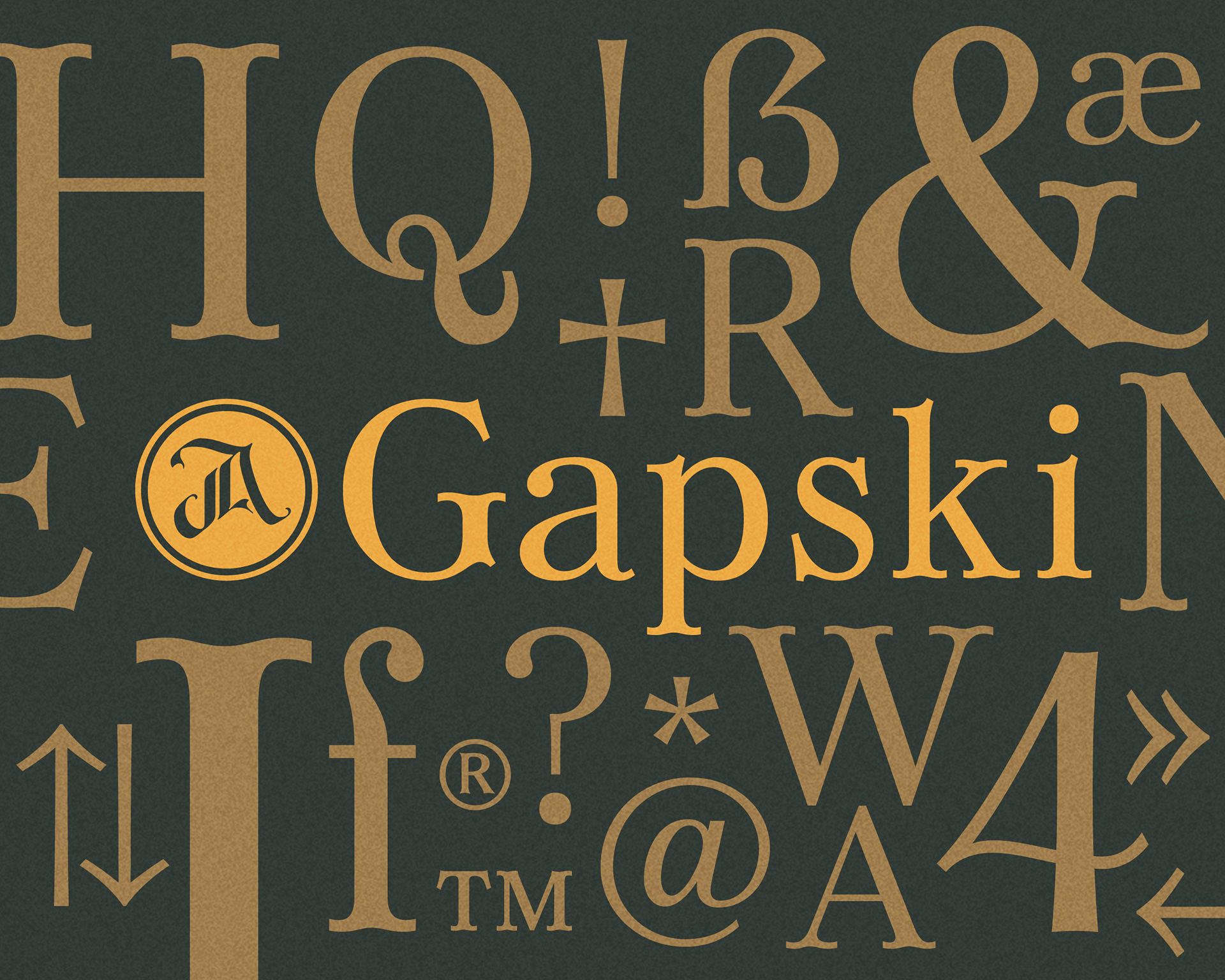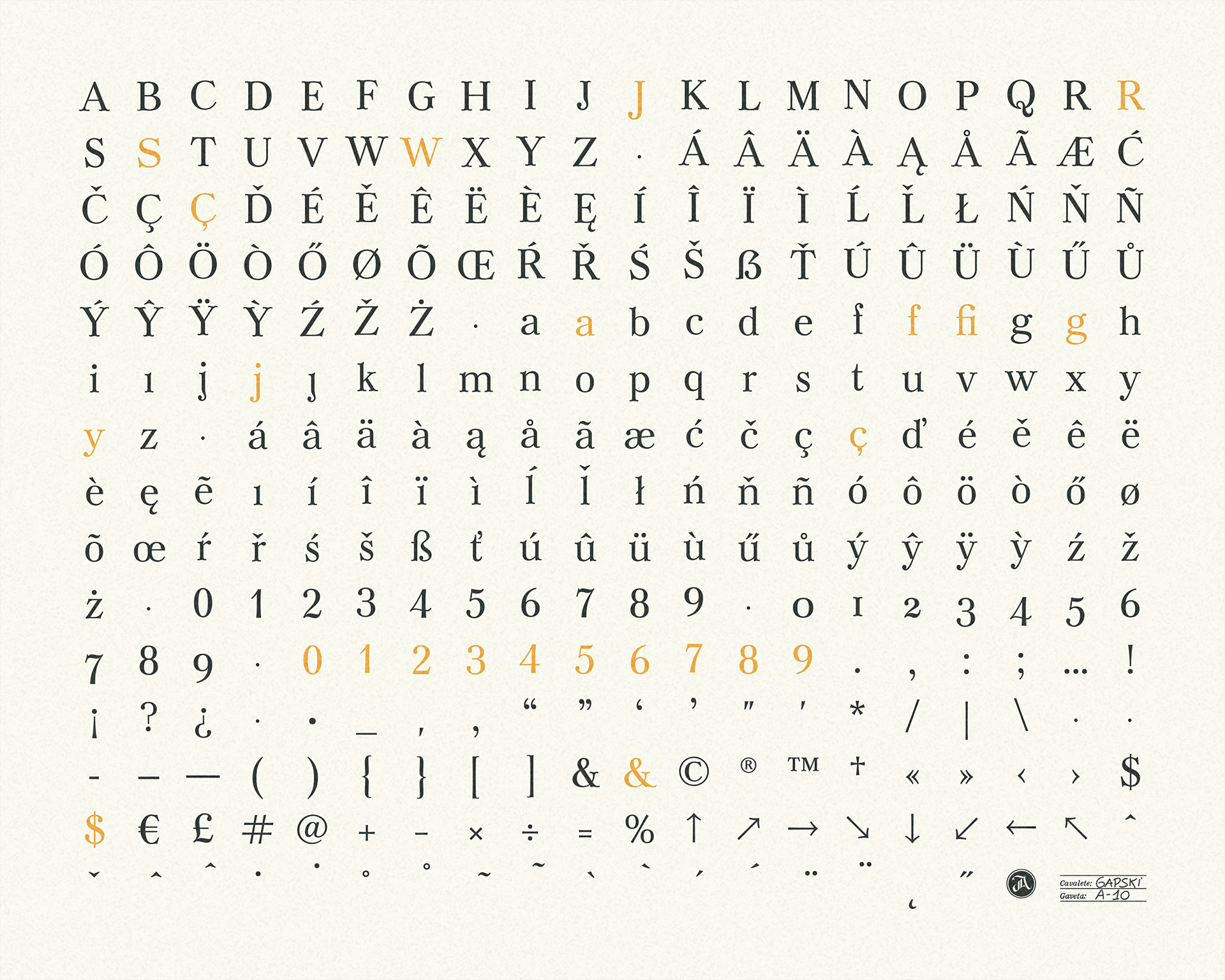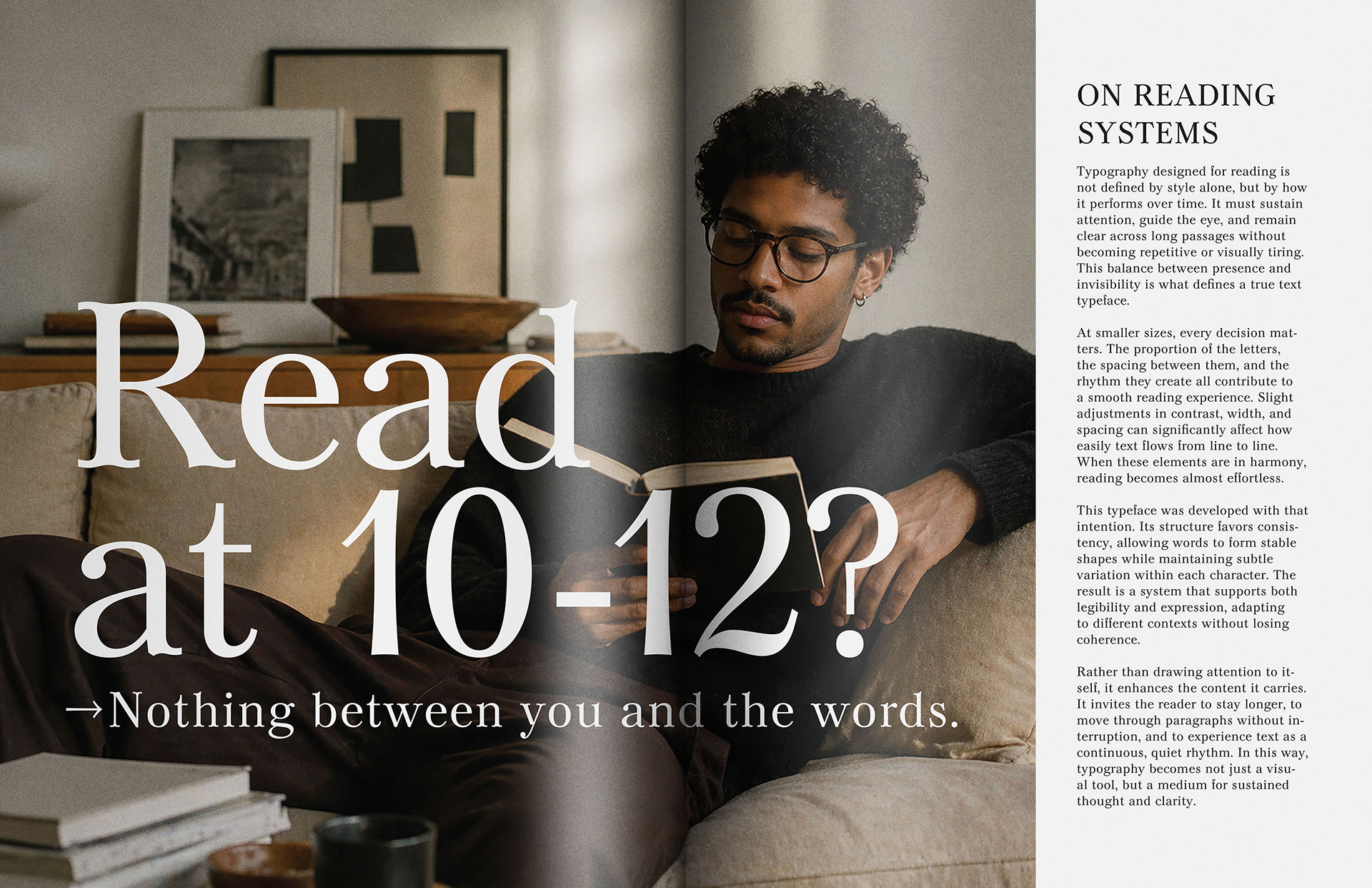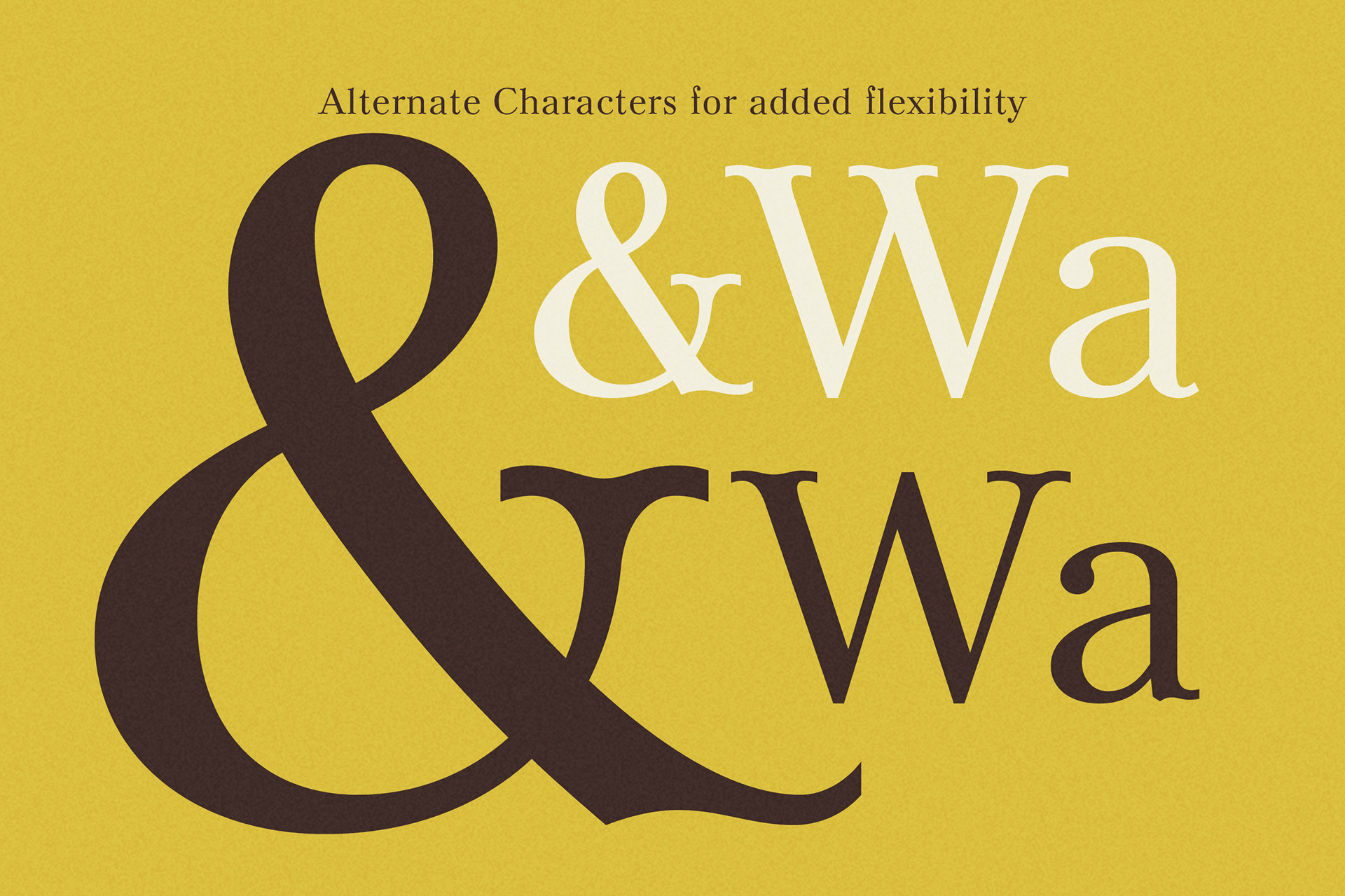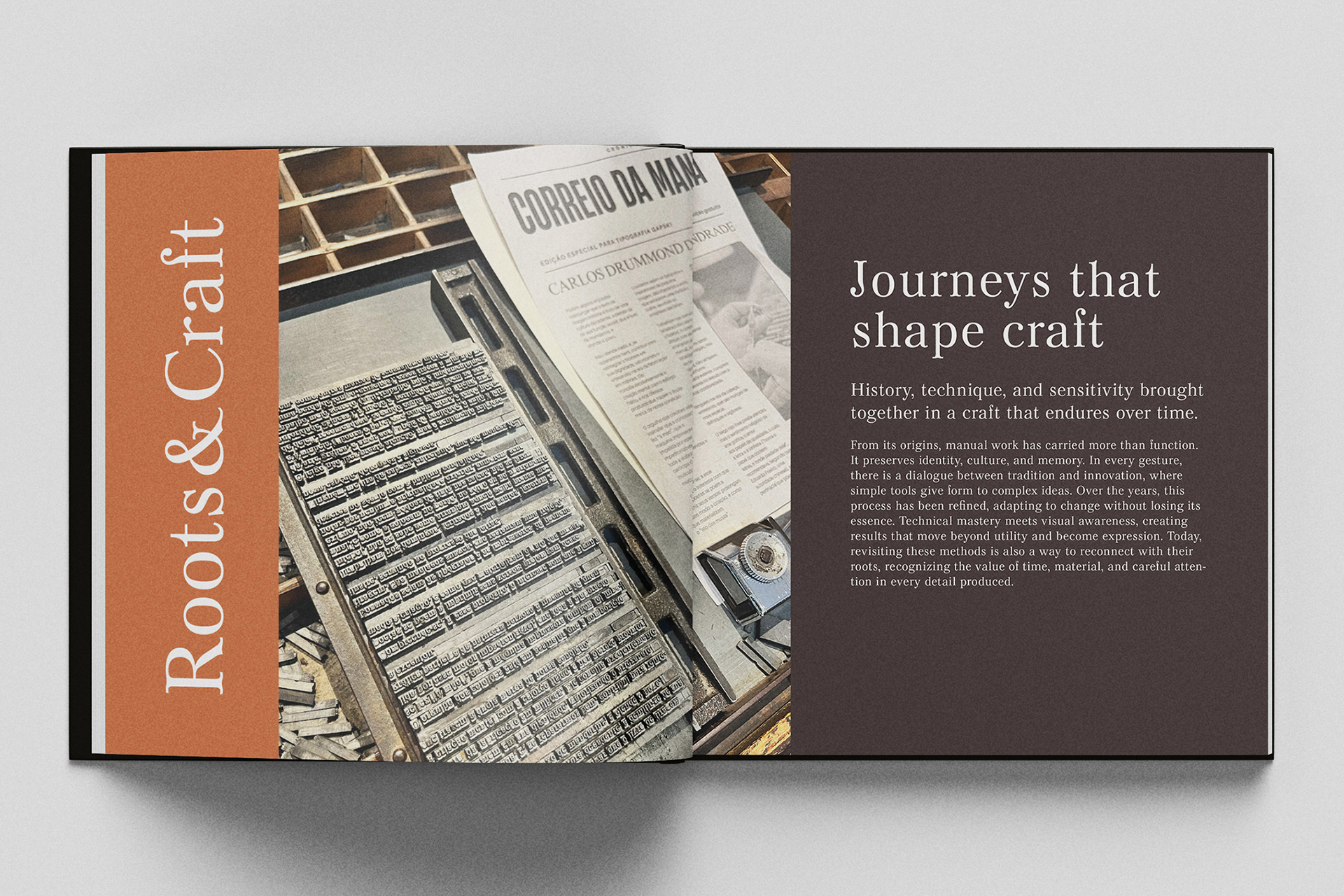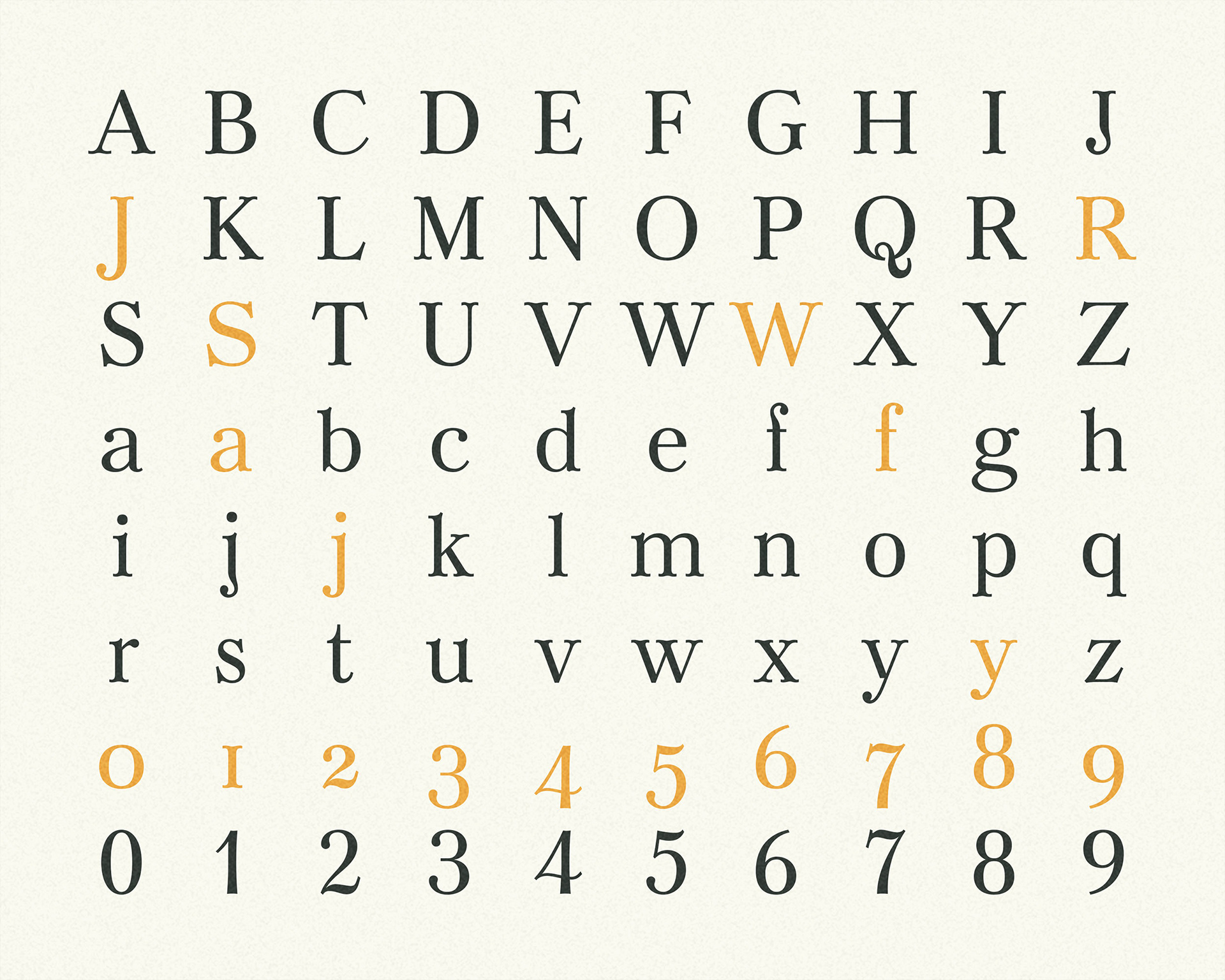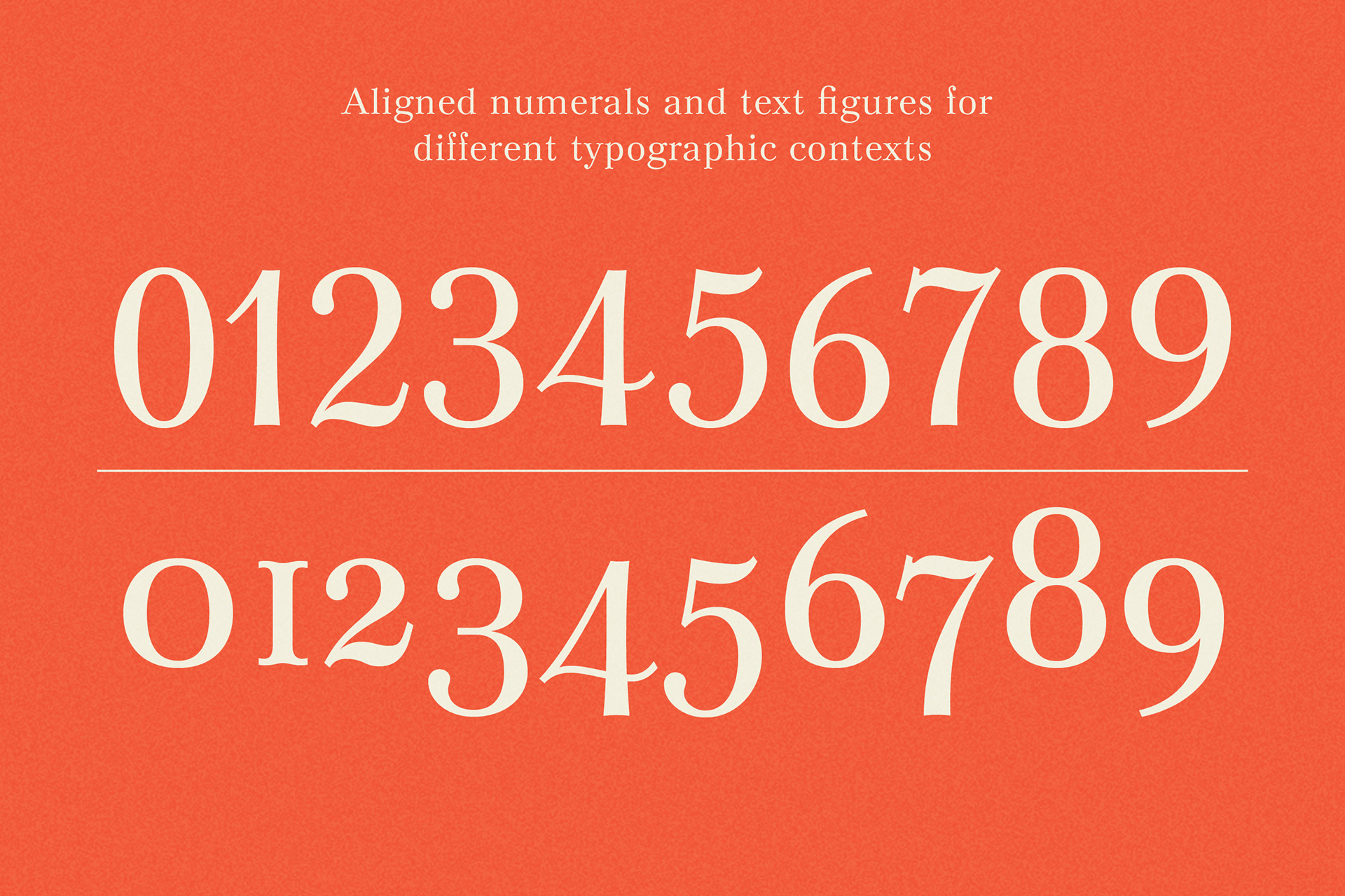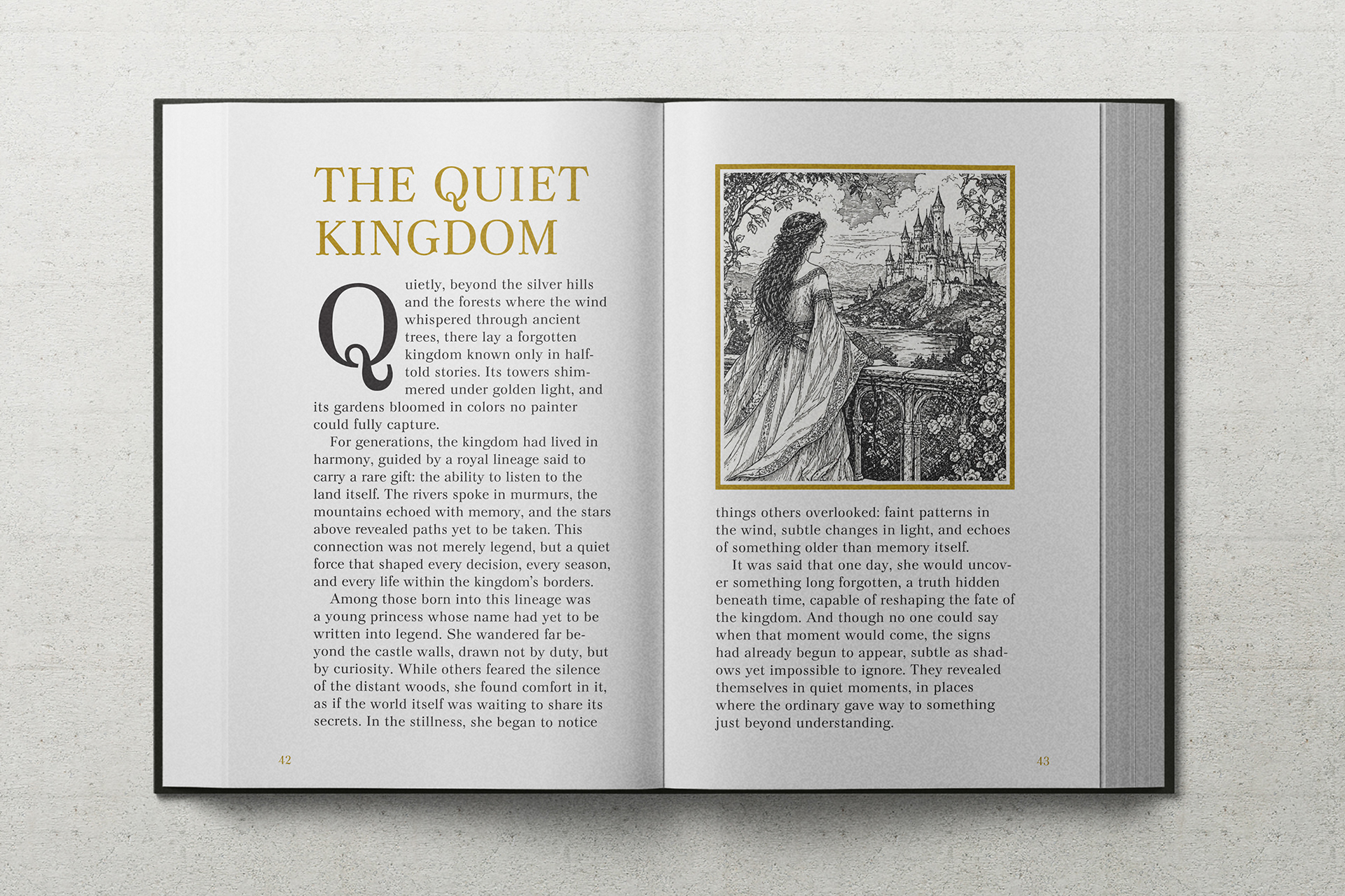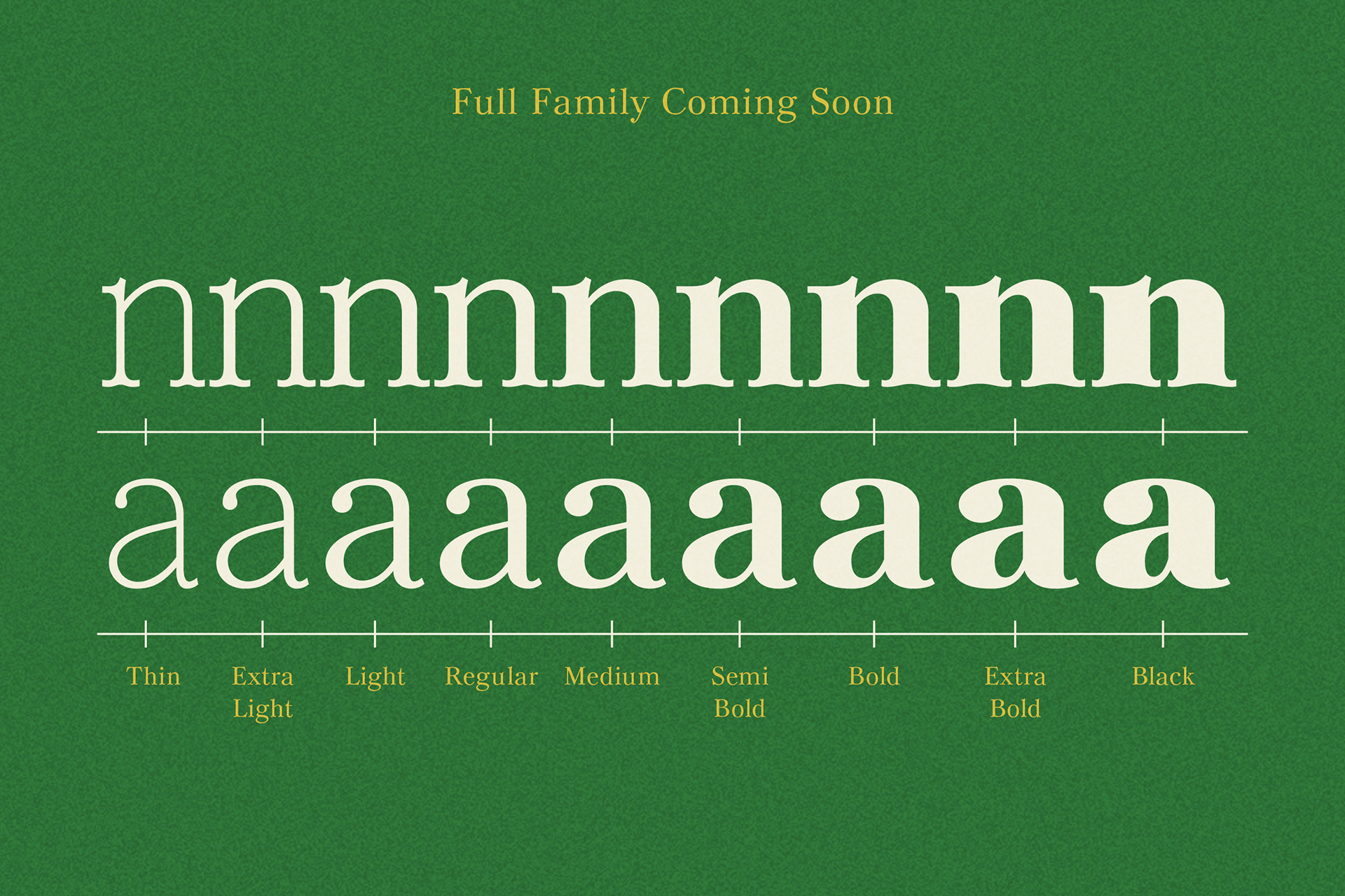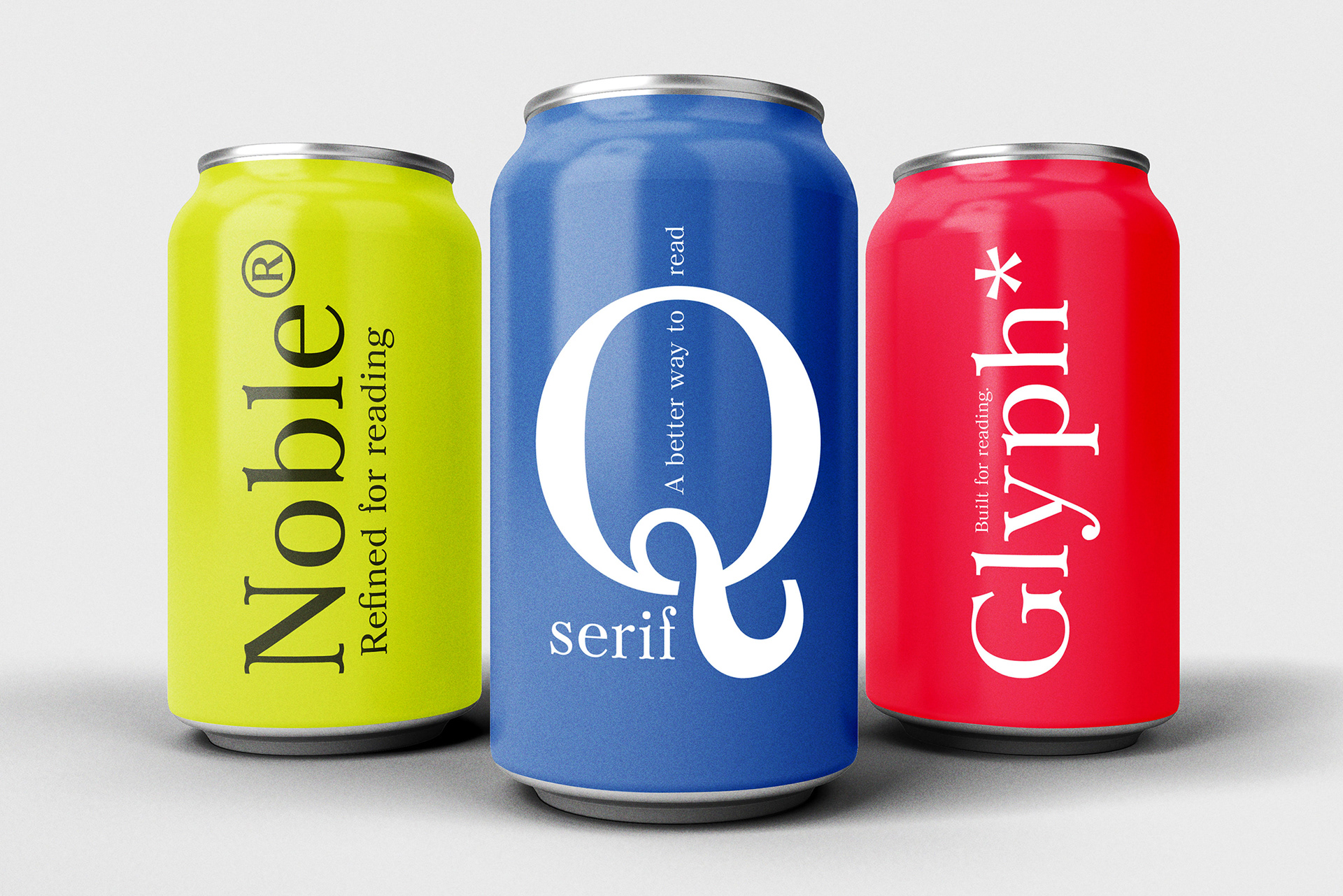
JA Gapski
A revival of Brazilian metal type for contemporary reading
This typeface is part of a revival project developed at Type West, rooted in my interest in Brazilian graphic history and cultural identity. It is based on metal type from Tipografia Irmãos Gapski, a traditional print shop in Curitiba founded in 1957, where a large collection of type has been preserved over decades.
The original forms were produced by Funtimod, one of Brazil’s main type foundries in the early 20th century, drawing from European influences adapted to the local market. Starting from 10 pt metal type, this revival translates those forms into a contemporary text typeface, designed for clarity, rhythm, and long-form reading.
The weight currently shown is the Book weight, developed for text use. The typeface is being expanded into a full family, which will be released soon.